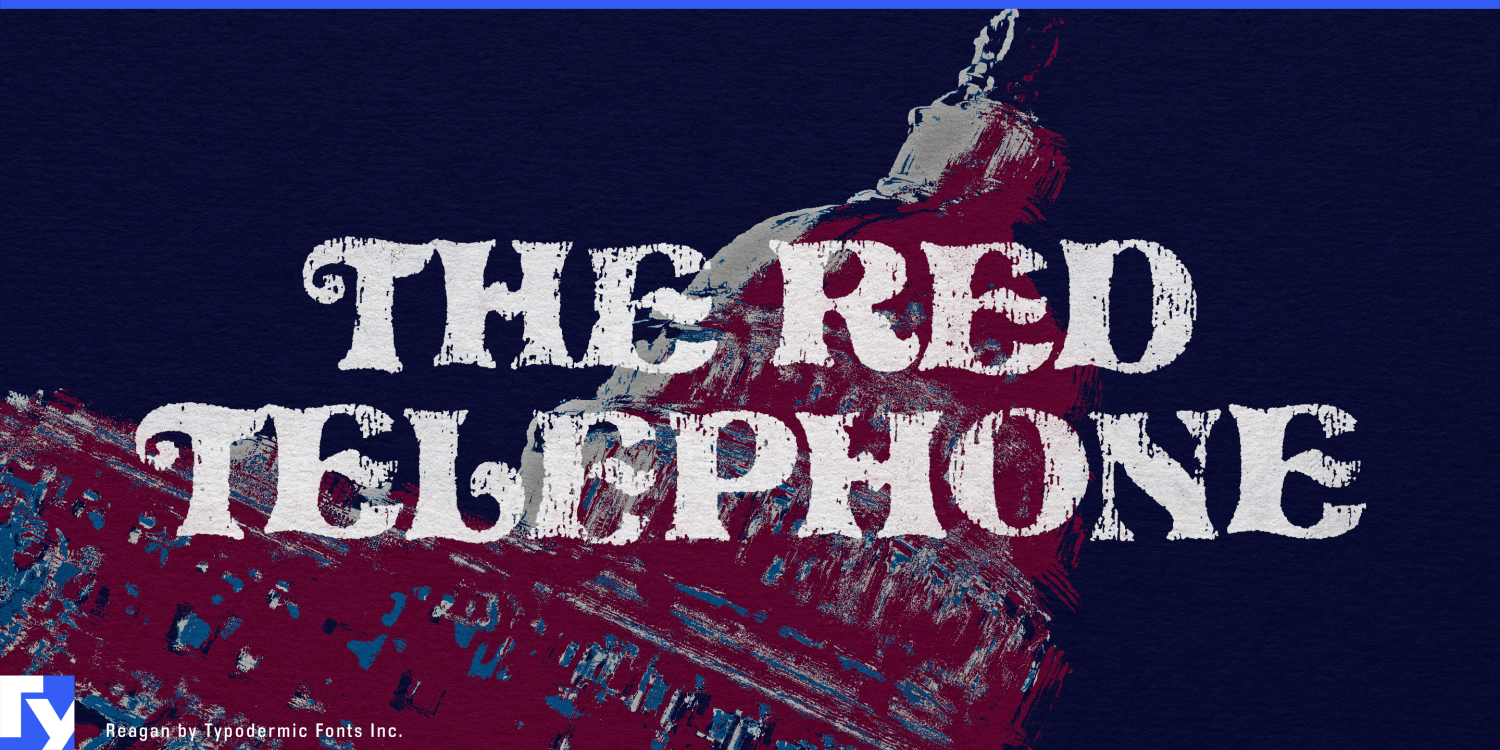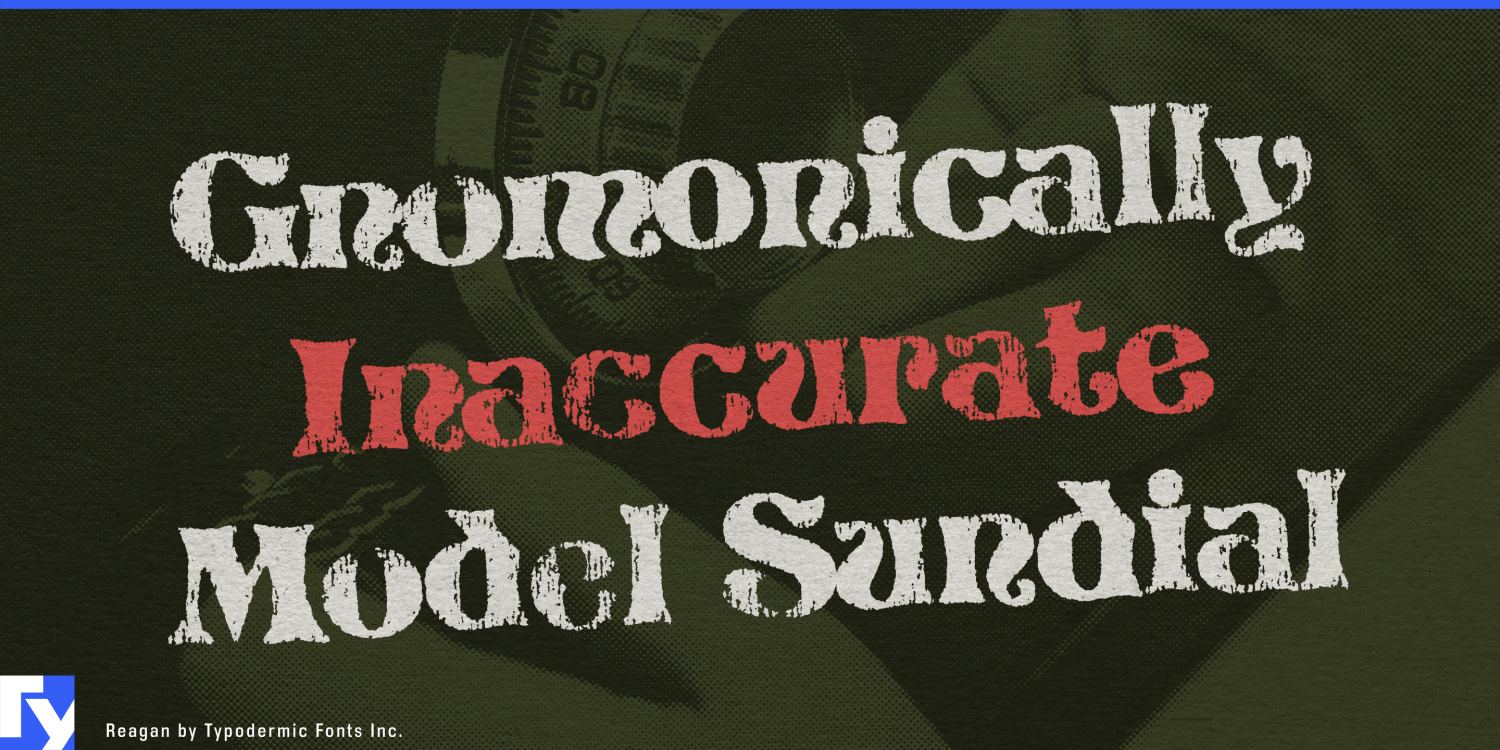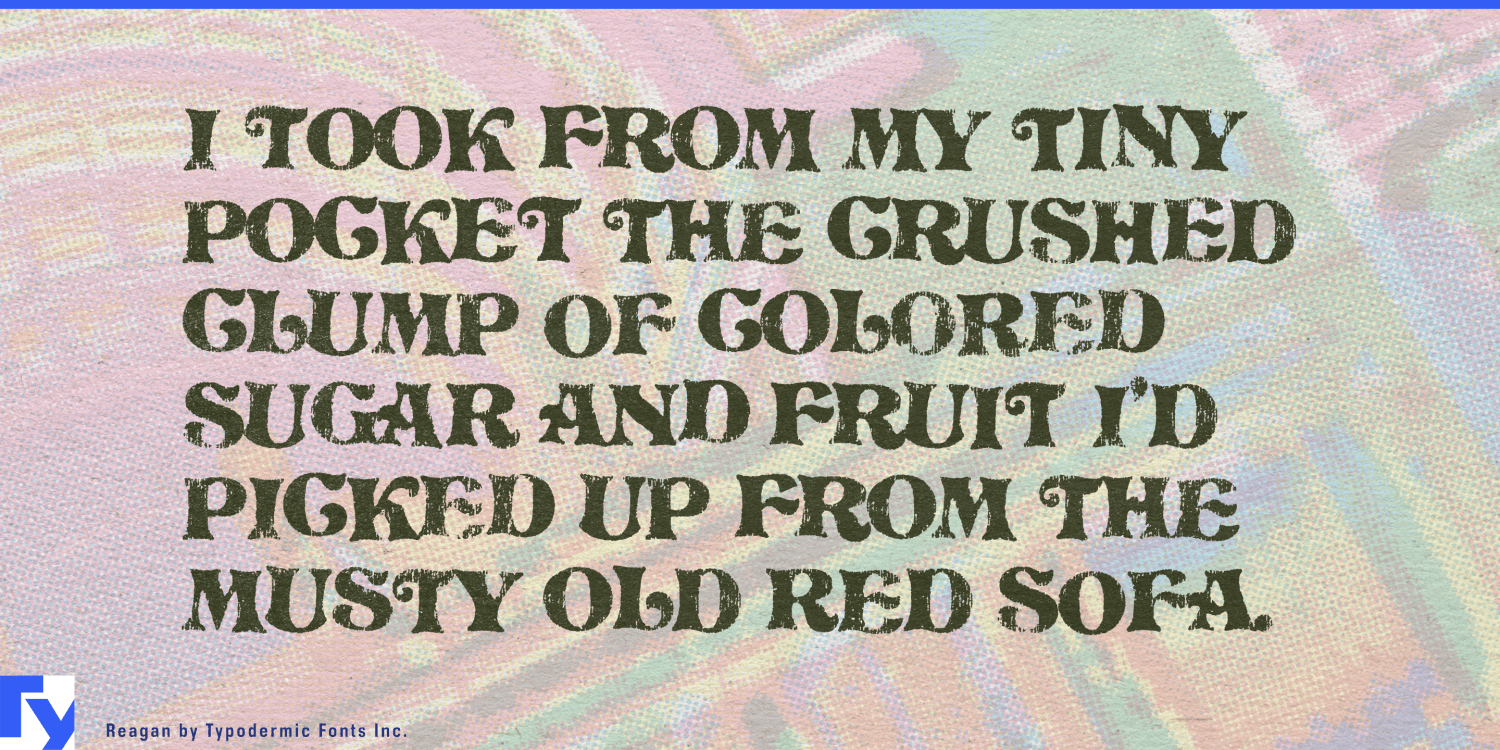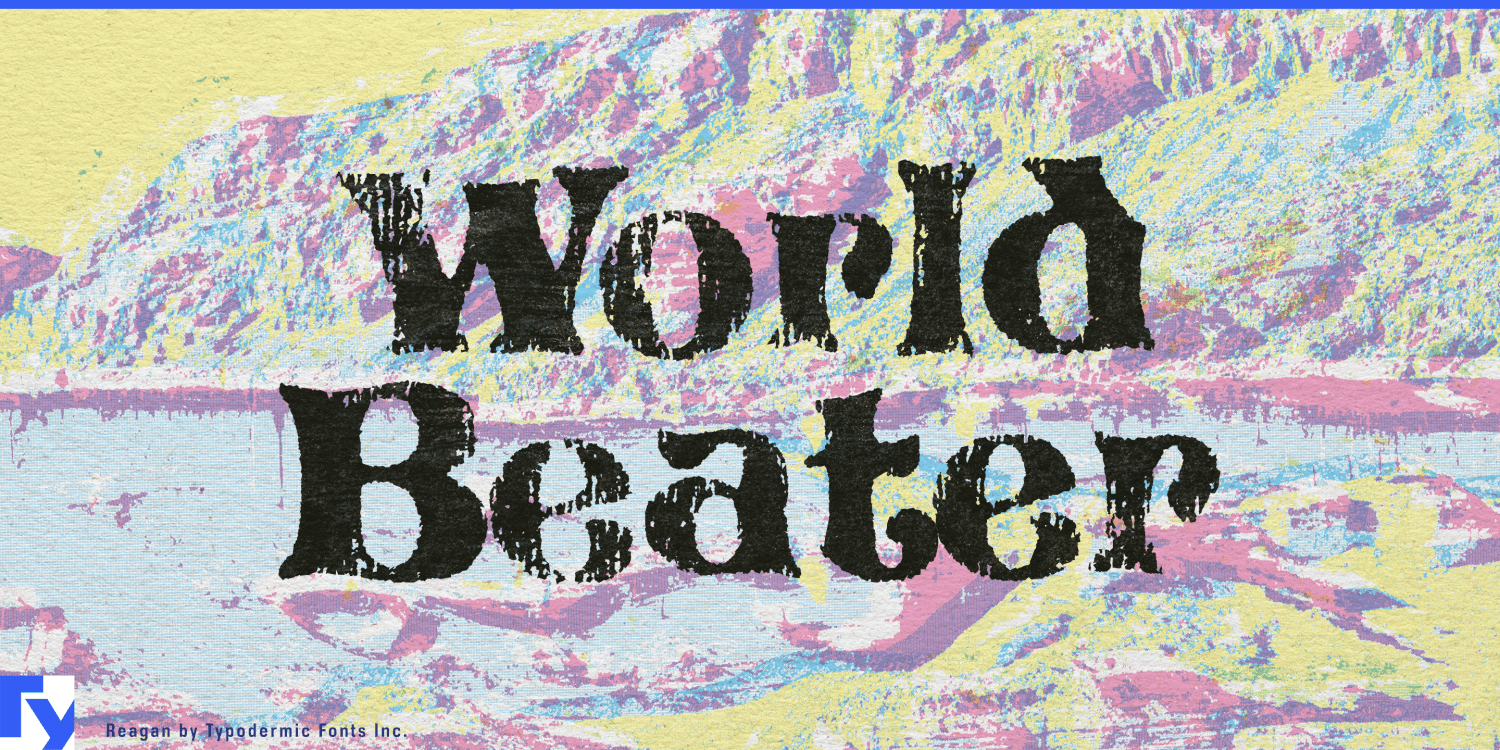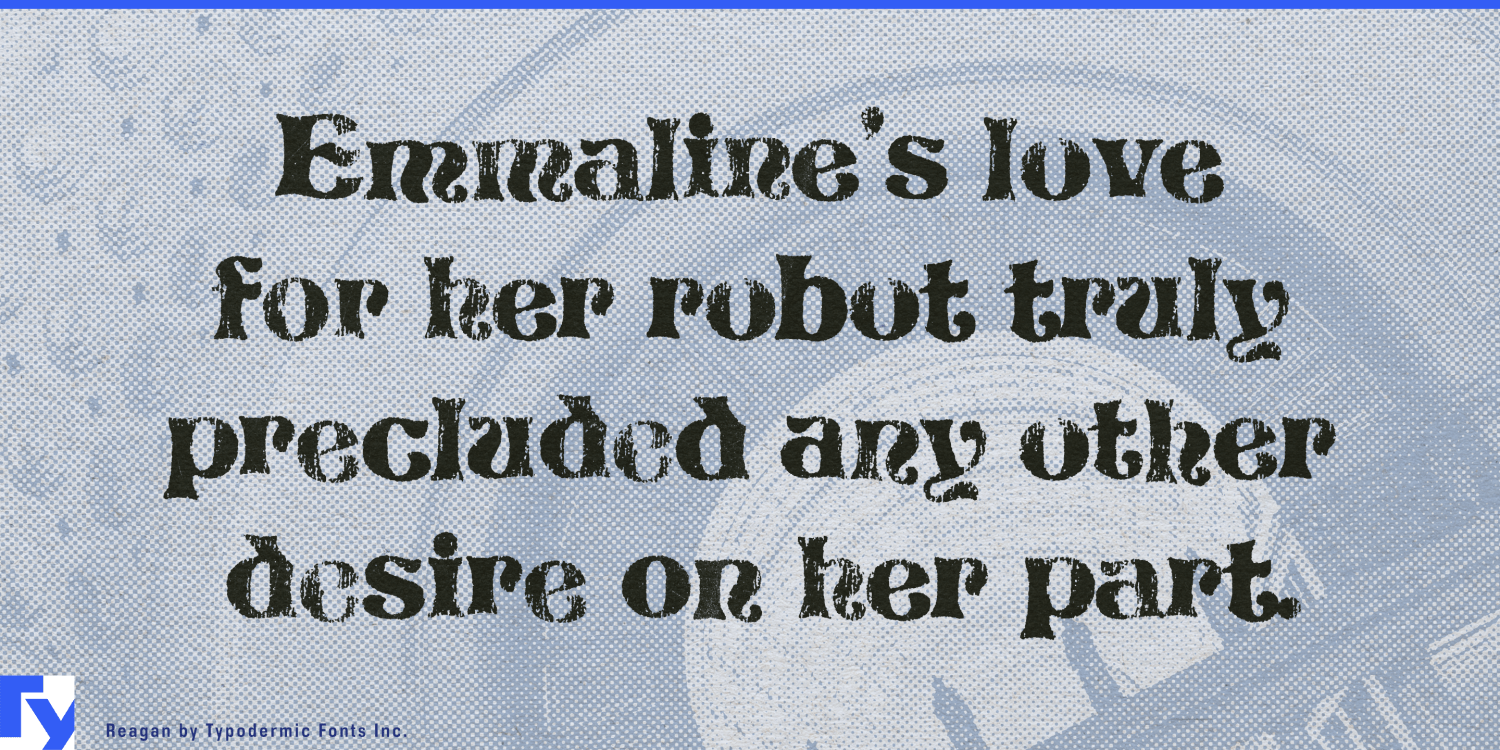
Step into the shadows of the early ’80s with Reagan, a typeface that captures the somber undercurrent of an era teetering on the edge of excess. This isn’t the neon-bright, bubbly ’80s of popular memory—it’s the gritty reality…